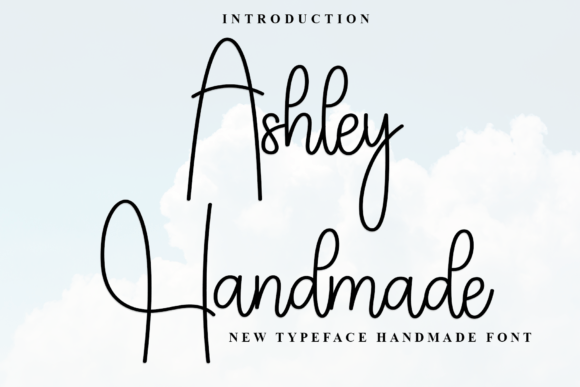
The Ashley Handmade Font: A Timeless Elegance for Your Creative Projects
Have you ever been in the middle of a design project, and suddenly, you’re stuck on finding the perfect font? I recall a particularly frustrating experience while working on a client’s wedding invitation. The design was almost complete, but the font just wasn’t right. That’s when I stumbled upon the Ashley Handmade font, and it completely transformed my project. In this article, I’ll share my experience with this beautiful font, its features, and how you can make the most of it in your creative endeavors.
A Personal Review: What I Love About Ashley Handmade
The Ashley Handmade font has become a staple in my design toolkit, and for good reason. Here are some of the things I love about it:
- ✨ Delicate and elegant: The font’s gentle curves and lines make it perfect for projects that require a touch of sophistication.
- ✅ Well-balanced characters: The font’s characters are beautifully proportioned, making it easy to read and visually appealing.
- 🎉 PUA coded: The font is PUA (Private Use Area) coded, which means you can access a wide range of glyphs and ligatures with ease.
While the Ashley Handmade font is exceptional, there are a few minor quirks to be aware of:
- ⚠️ Limited use in body text: Due to its delicate nature, the font may not be the best choice for lengthy body text. It’s better suited for headings, titles, or short paragraphs.
- 🤔 Requires OpenType features: To get the most out of the font, you’ll need to use OpenType features, which can be a bit tricky if you’re not familiar with them.
The Ashley Handmade font was crafted with love and attention to detail, inspired by the beauty of handwritten typography. The designer aimed to create a font that would evoke a sense of timeless elegance and sophistication, perfect for a wide range of creative projects.
| What is the Ashley Handmade font best used for? | The Ashley Handmade font is ideal for creative projects, such as wedding invitations, branding, packaging, and titles. |
| Is the Ashley Handmade font PUA coded? | Yes, the font is PUA coded, making it easy to access a wide range of glyphs and ligatures. |
In conclusion, the Ashley Handmade font is a beautiful, elegant, and timeless addition to any design project. Its delicate curves, well-balanced characters, and PUA coding make it a versatile choice for a wide range of creative endeavors. With its OpenType features and glyphs, you can add a touch of sophistication and whimsy to your designs. Give it a try and see how it brings your projects to life!